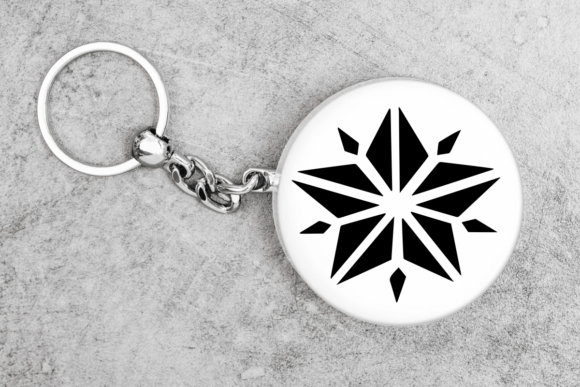
Sparkle Stars Font
Sparkle Stars is a fun dingbat font filled with lots of twinkling stars and sparkles. It’s perfect for adding a bit of magic and shine to your designs!